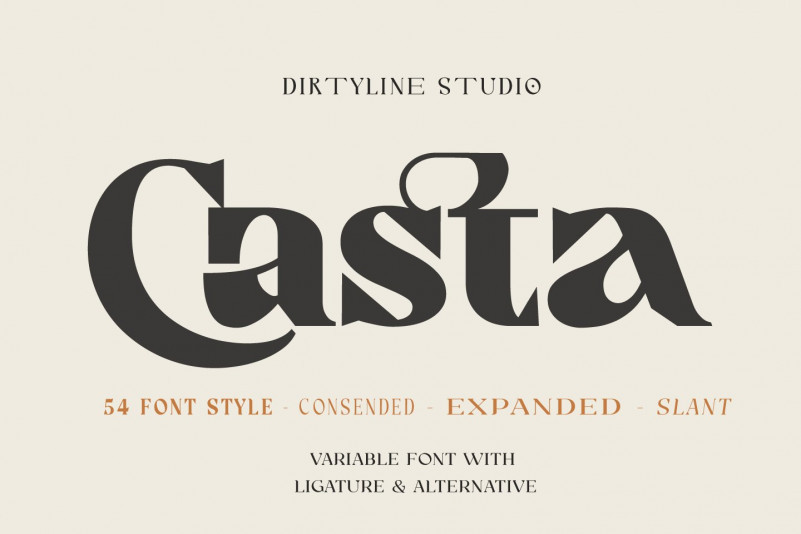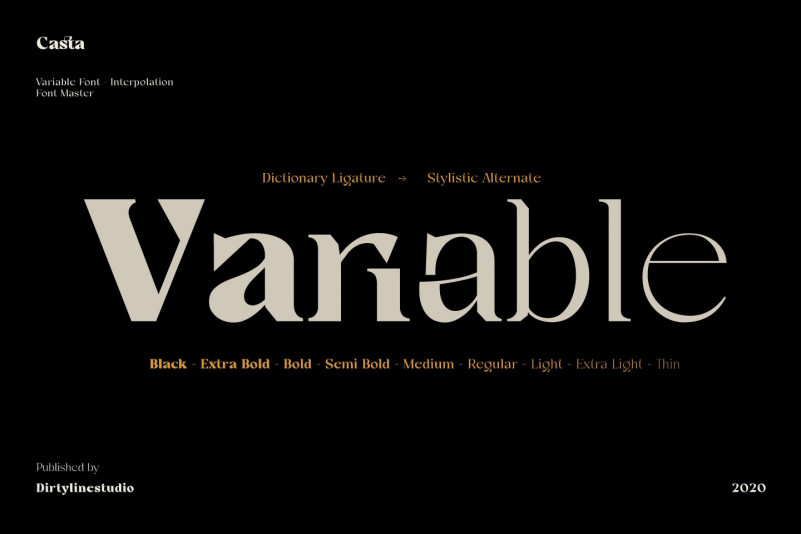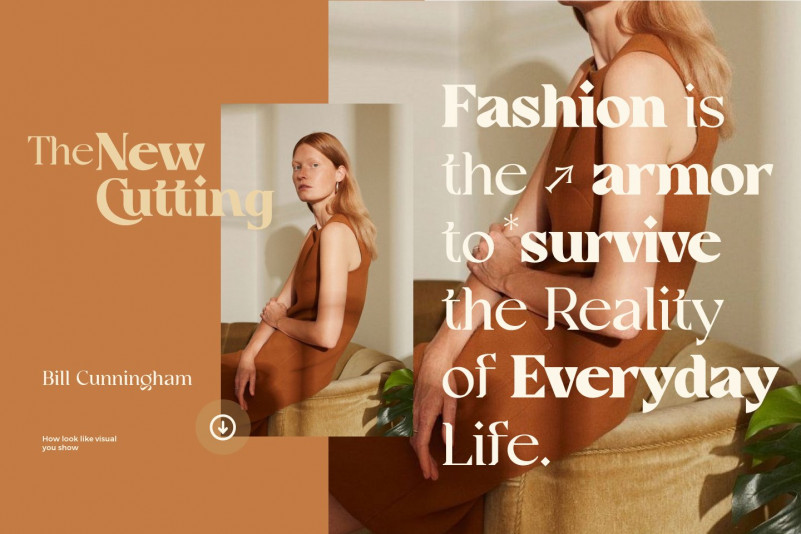
Casta Font
Casta is strong Modern contrasts make this typeface both impressive at display sizes and easily readable in text size, while the sharp shapes of the triangular serifs and the distinctive letter shapes show their strength in logo design and impressive editorial use.